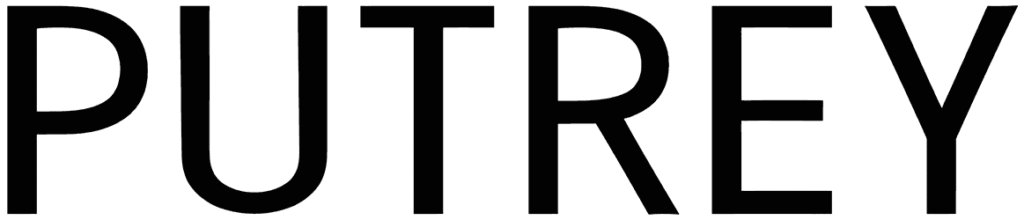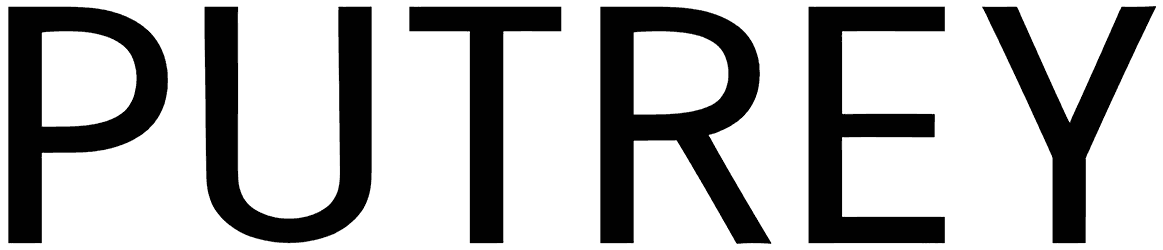
Putrey Font
When you use a popular and modern style for your design, you get to communicate better with your audiences, and this sans-serif font is a perfect choice to make it happen. The characters are bold and humble, and they consist of three different weights. Putrey font can be matched with any design, such as an educational school poster or an industrial advertisement citylight.